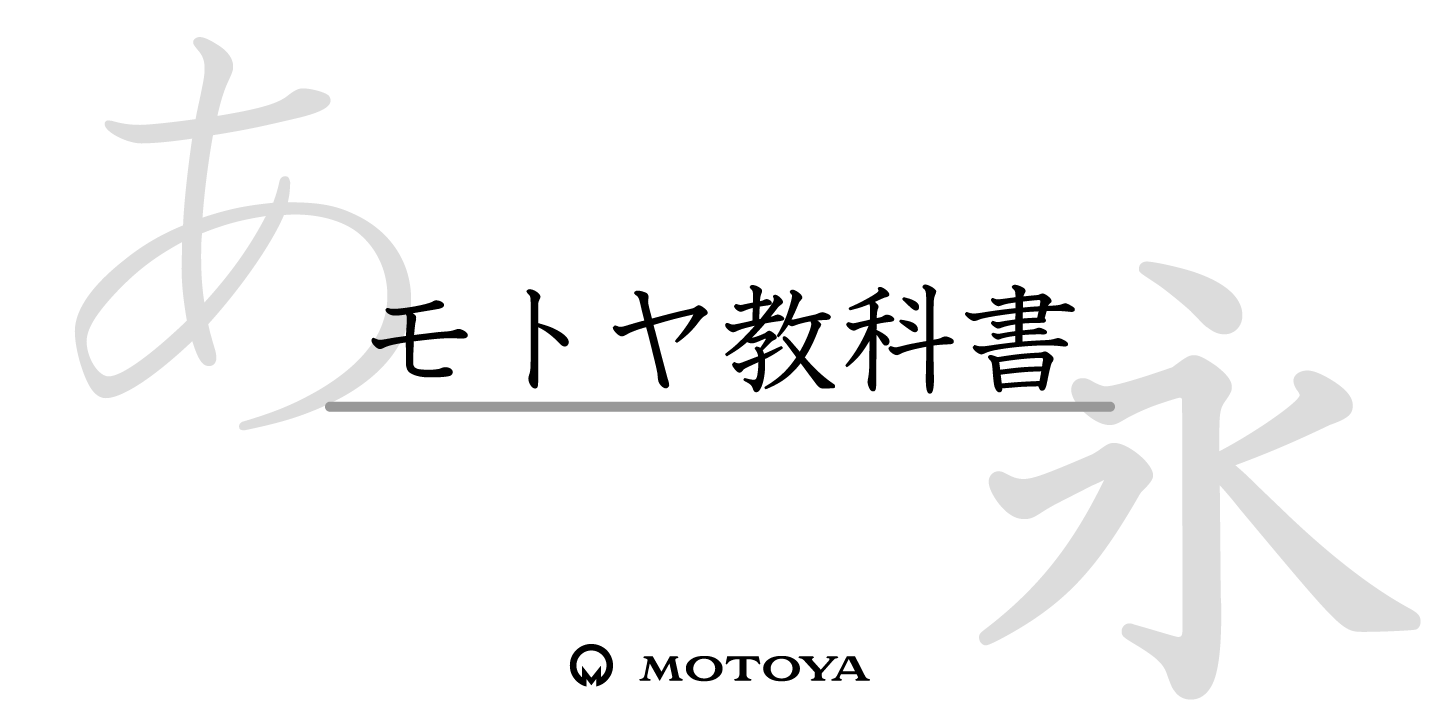
Motoya Kj Kyotai Font is perfect for Japanese restaurant branding, kanji learning materials, traditional cultural presentations, Japanese tea ceremony invitations, martial arts dojo signage, zen meditation center designs, Japanese language textbooks, anime and manga graphics, traditional calligraphy projects, and authentic Japanese cultural applications that require precise character formation and cultural authenticity.
This font is exciting because it masterfully preserves the traditional beauty and precise craftsmanship of authentic Japanese typography with meticulously crafted kanji and kana characters that honor centuries-old calligraphic traditions while providing modern digital functionality. Motoya Kj Kyotai Font features authentic stroke patterns and balanced proportions that reflect the disciplined artistry and cultural depth essential to proper Japanese typographic expression.
Motoya Kj Kyotai Font family includes Regular, Bold, Light, Traditional, Modern, Calligraphy, Educational, and Display versions, plus comprehensive Japanese character sets, traditional symbols, cultural ornaments, and authentic punctuation marks that enhance the genuine Japanese aesthetic and provide complete solutions for Japanese language and cultural applications.
For authentic Japanese cultural and language projects, Motoya Kj Kyotai Font Free Download delivers unmatched cultural accuracy and typographic excellence. The font's traditional character formation and Japanese heritage make it perfect for educational institutions, cultural organizations, and Japanese businesses seeking to communicate authenticity, respect, and cultural understanding. Its precise design appeals to Japanese language learners and cultural enthusiasts who value authentic representation. The character set includes complete hiragana, katakana, and kanji support that meets Japanese typography standards. Professional designers appreciate its ability to convey both cultural authenticity and modern functionality while maintaining exceptional readability across Japanese publications, cultural materials, and educational content, making it essential for organizations that want to honor Japanese cultural traditions and communicate with genuine respect for Japanese language and artistic heritage.